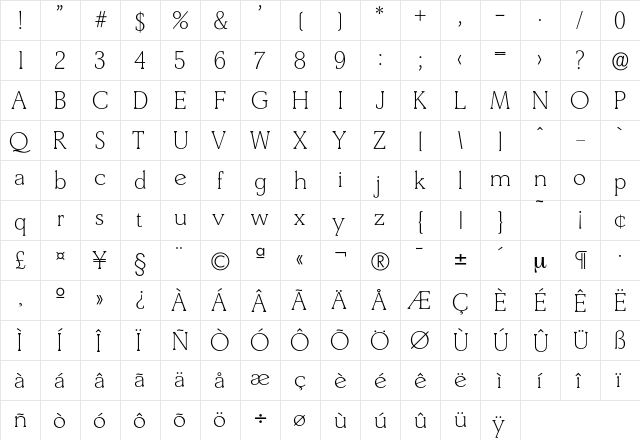
Derringer-Xlight Regular
Design Context for Derringer-Xlight Typeface
Derringer-Xlight is a composed and adaptable typeface that performs quietly and consistently across a wide range of design contexts. The delicate stroke weight brings airiness and refinement to layouts.
Pro Tip: Pair Derringer-Xlight with a font of contrasting weight or personality to build a more expressive typographic hierarchy.